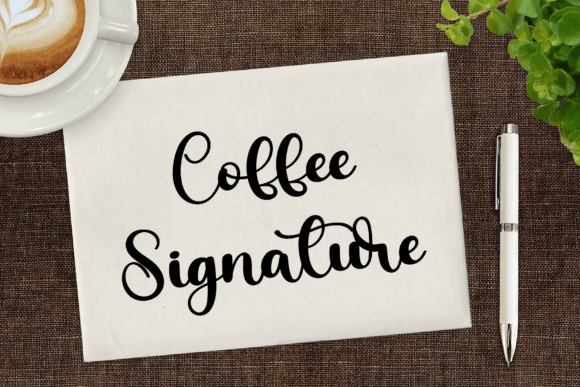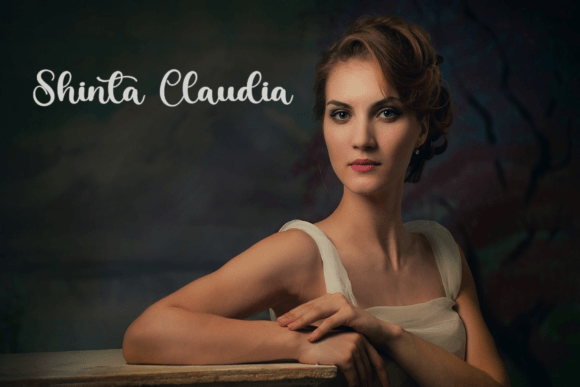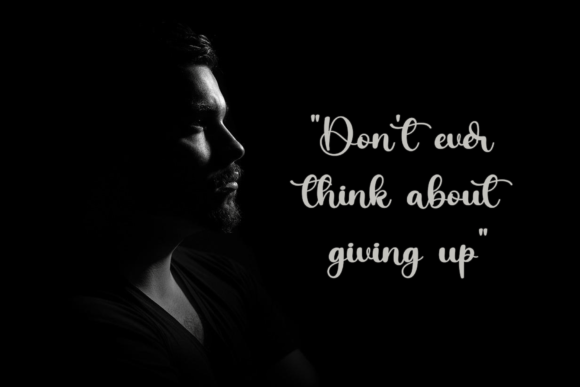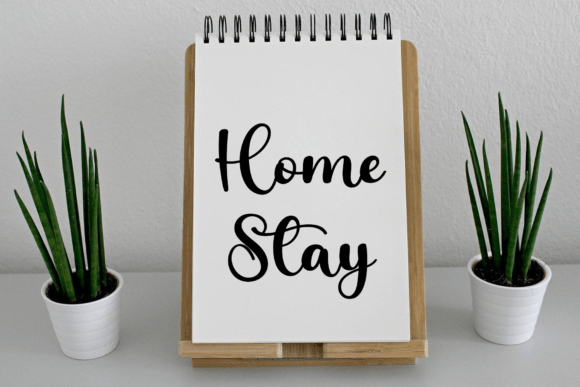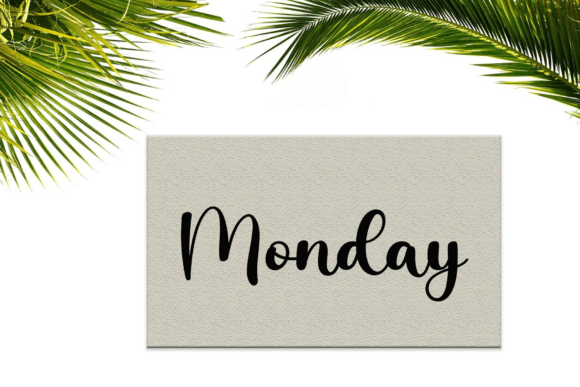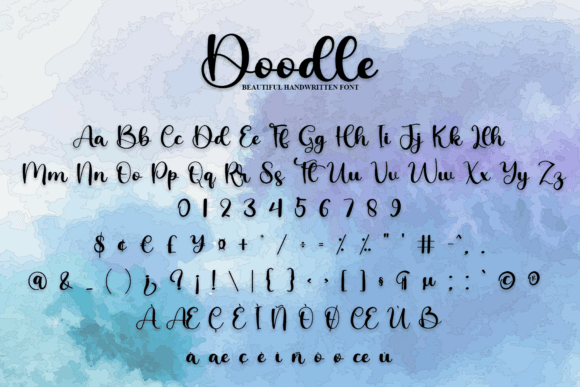
The Birth of a Beautiful Design: Introducing Doodle Font
Who hasn’t had that magical moment when inspiration strikes, and the perfect design concept suddenly comes to life? For designers, this feeling is what drives us to create something truly special. It’s a spark that sets the creative wheels in motion, and for us, it happened when we discovered the Doodle Font.
This elegant and feminine typeface is designed to elevate any headline, making it a perfect choice for wedding stationery, invitations, florists, packaging, and social media posts. With its soft, whimsical touch, Doodle Font adds a touch of sophistication and romance to any design project. For designers, it’s a valuable asset that can help bring our visions to life and make our clients’ dreams a reality.
Doodle Font Key Features
- Unique Hand-Drawn Style: Doodle Font features a distinctive, hand-drawn aesthetic that adds a touch of whimsy and personality to any design.
- Large Character Set: Includes a comprehensive set of characters, including uppercase and lowercase letters, numbers, and punctuation marks.
- Perfect for Creative Projects: Ideal for use in creative projects, such as logos, branding, packaging, and advertising materials, where a unique and playful font is desired.
Doodle Font Review
At first glance, Doodle Font appears to be a charming addition to any design project. ✨ The whimsical nature of the font is sure to capture attention and add a touch of personality to any text. The cursive script and playful flourishes are reminiscent of handwritten notes, making it perfect for creative and artistic endeavors.
One of the standout features of Doodle Font is its versatility. ✨ It’s suitable for a wide range of applications, from social media graphics to wedding invitations, and even branding materials. The font’s expressive nature makes it easy to convey emotions and add a sense of warmth to any design.
- ⚠️ The font’s cursive nature can make it difficult to read in certain contexts, such as body text or long blocks of text.
- ⚠️ Doodle Font may not be the best choice for formal or professional designs, as its playful nature may come across as unprofessional.
- ⚠️ The font’s expressiveness can also make it challenging to achieve consistency across different text elements.
Overall, Doodle Font is a great addition to any design arsenal, especially for creative projects. While it may have some limitations, its unique charm and versatility make it a valuable tool for designers looking to add a personal touch to their work.
Tips for Getting the Most Out of Doodle Font
To get the most out of the Doodle Font, use it for:
* Handwritten or artistic text effects
* Casual or informal designs
* Children’s books or educational materials
The Doodle Font is perfect for:
* Party invitations and decorations
* Children’s party materials and stationery
* Artistic or creative projects
Alternatives to Doodle Font
Pacifico is a beautiful, elegant script font that is perfect for adding a touch of sophistication to your designs. It is ideal for use in logos, branding, and invitations where a more refined look is desired.
Compared to Doodle Font, Pacifico is more polished and refined, making it suitable for more formal projects. While Doodle Font is great for casual and playful designs, Pacifico is better suited for high-end or luxury brands.
Great Vibes is a modern, cursive script font that is perfect for creating a friendly and approachable atmosphere in your designs. It is ideal for use in social media graphics, posters, and other marketing materials where a fun and energetic vibe is desired.